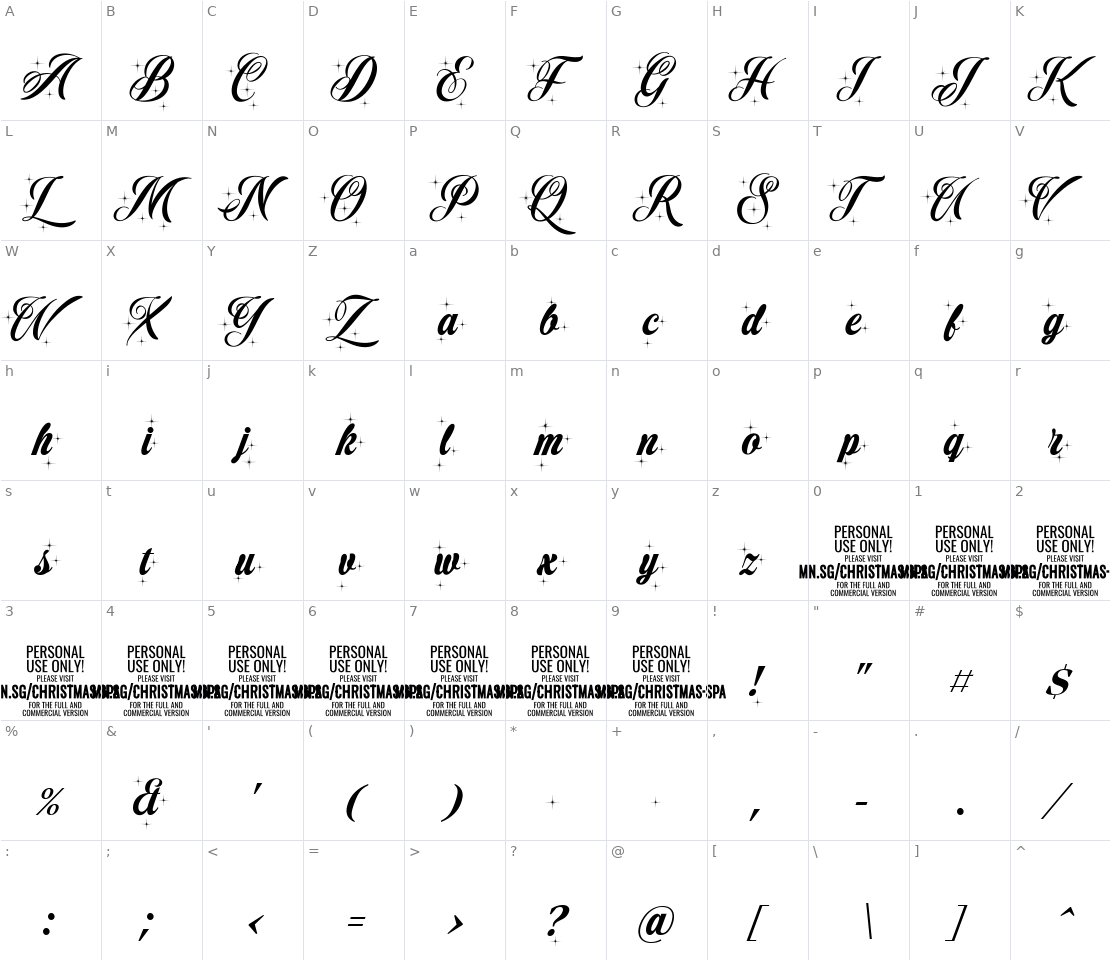
Christmas Sparkle
Christmas Sparkle is an ornamental script from Måns Grebäck with flowing, elegant letterforms designed to carry a festive, celebratory tone. The decorative strokes and flourishes give it a polished, dressy quality that fits naturally on holiday cards, seasonal packaging, and event invitations. It's a headline face at heart, best used where the ornamental detail has room to shine.